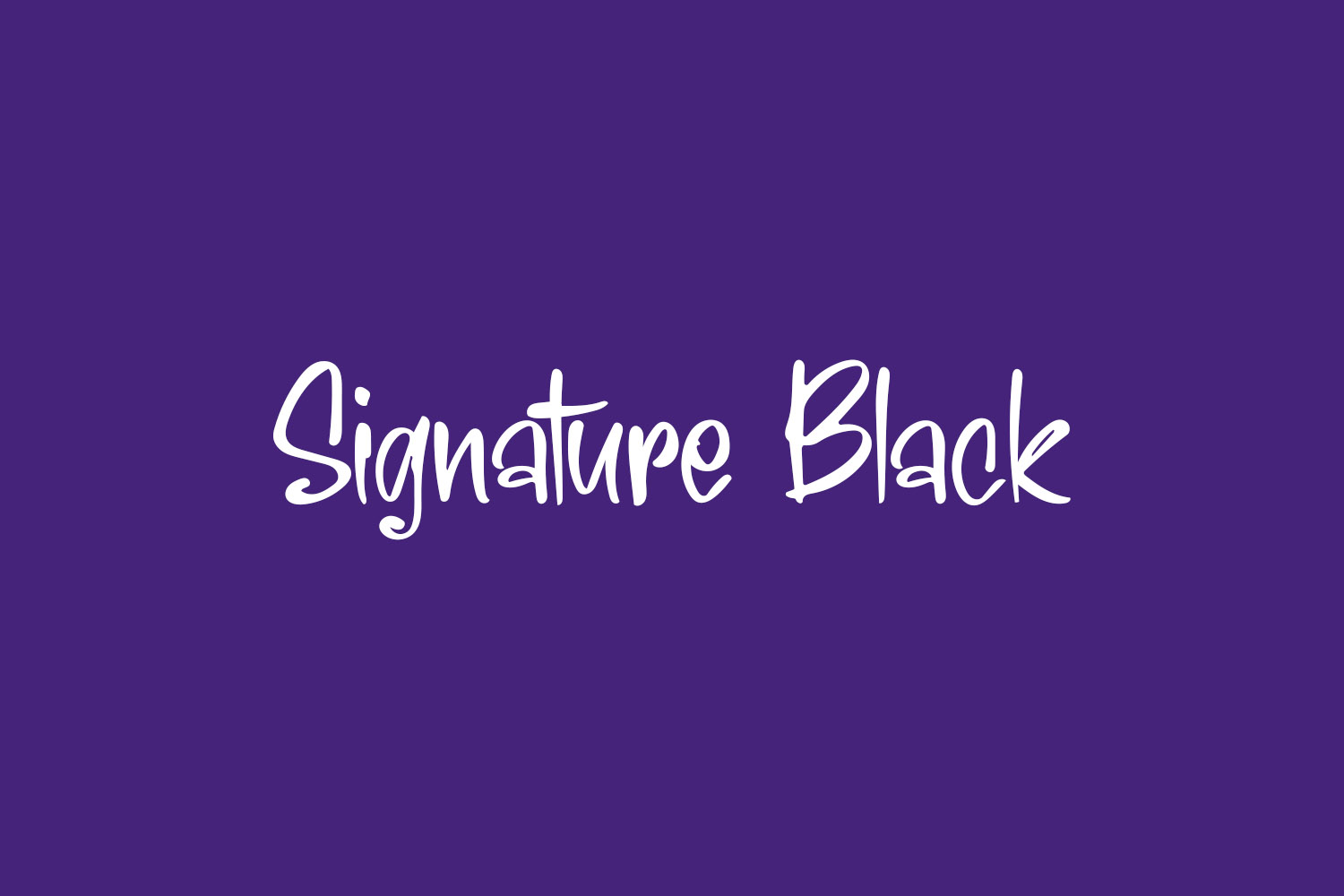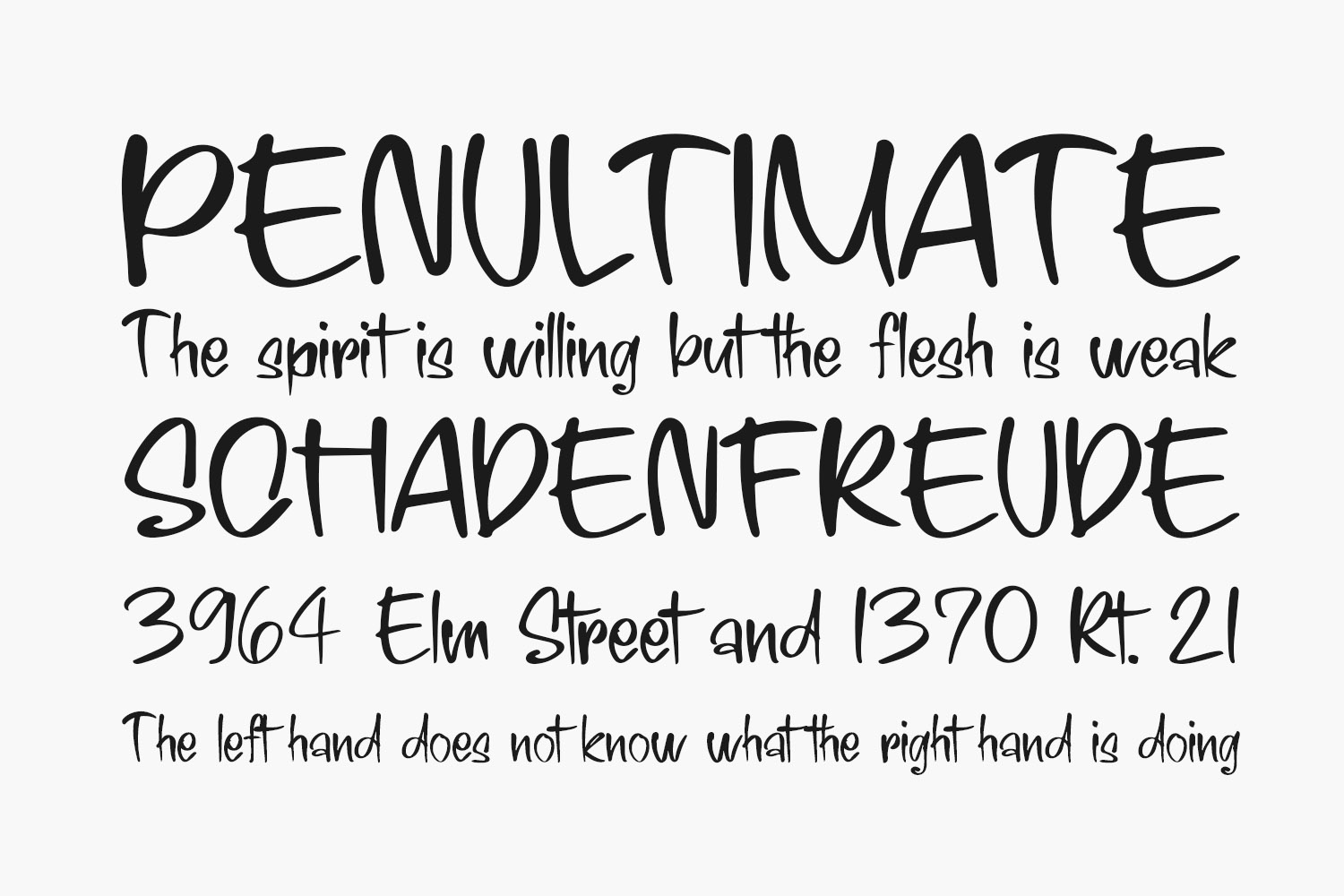
Signature Black Free Font is a classic handwritten font. A little bit quirky, this font looks incredibly adept in a wide variety of contexts. Signature Black Free Font was designed by Creative Zone and is free for personal use only. Please purchase the full version for commercial use.